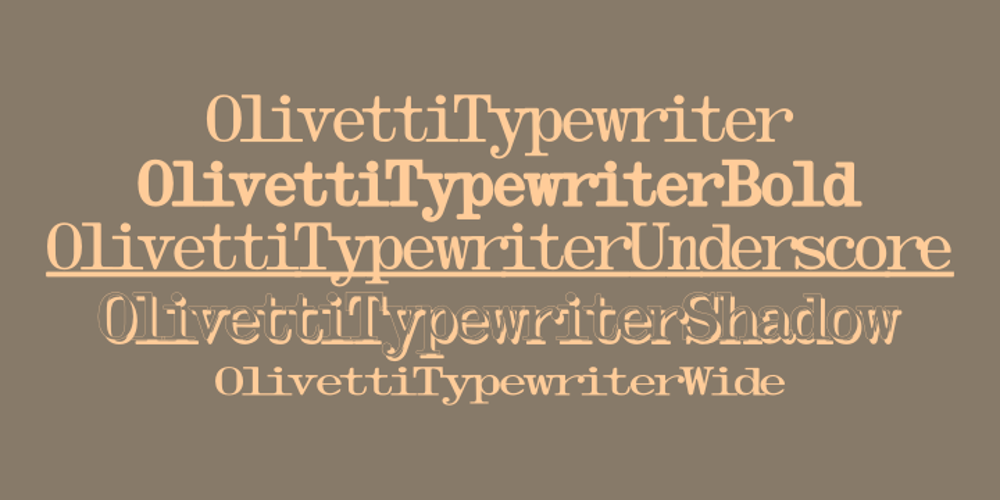
Olivetti Typewriter Font Family was designed by Iza W and published by Intellecta Design. Olivetti Typewriter contains 5 styles and family package options. A typewriter font design, great for mimicking the sloppy ink effect of older machines.